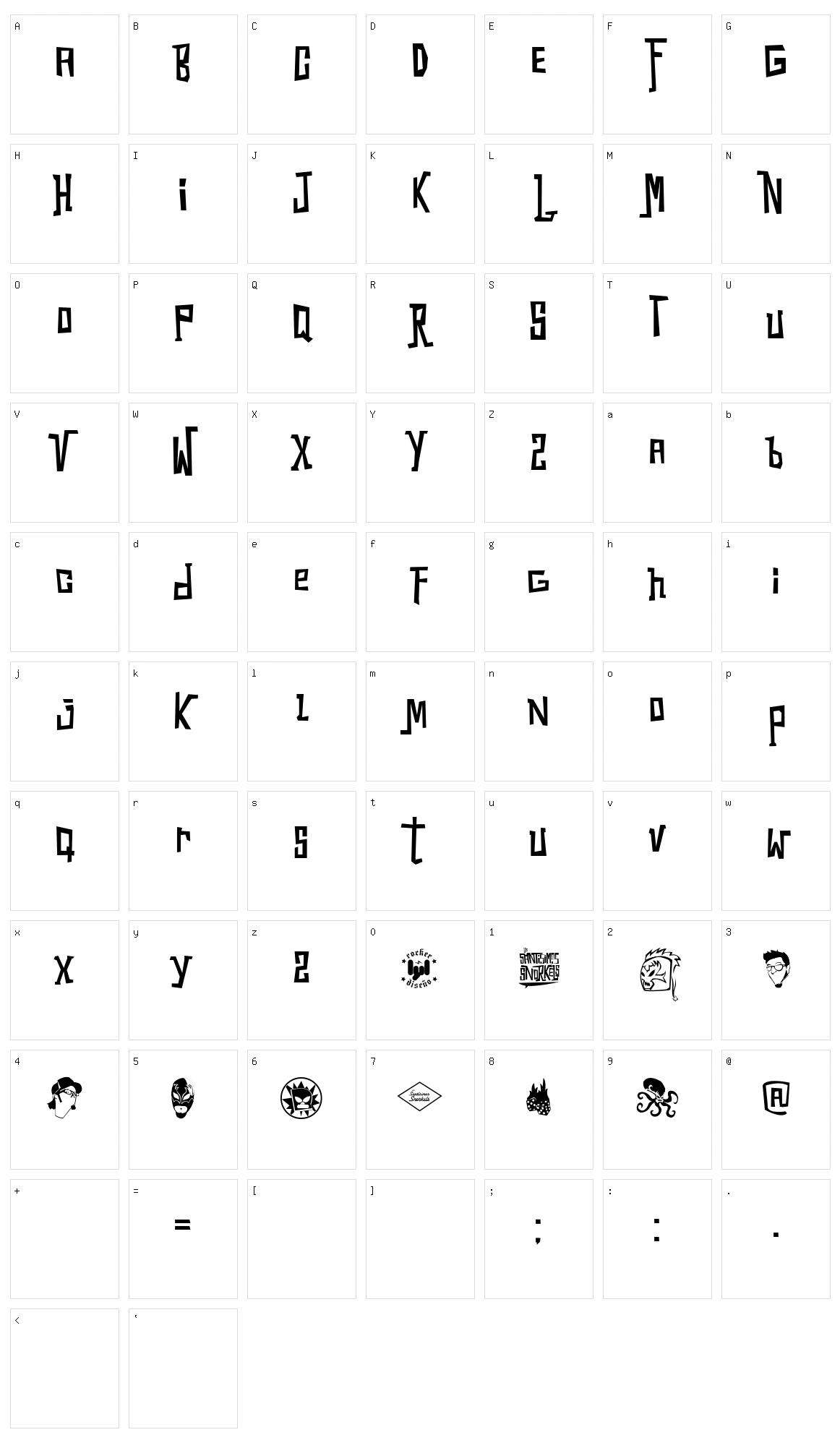
The free font Los Snorks is carefully designed by Dr. Reverb Snorkel, showcasing a thoughtful balance of creativity and usability and falls under the Cartoon font style. When you download the ZIP file, it contains only 20.82 KB of font files, making it lightweight and quick to download. Please review the license details below to understand permitted usage and distribution rights. If license information is not available, we recommend using this font for personal projects only or contacting the author directly for commercial usage permissions.